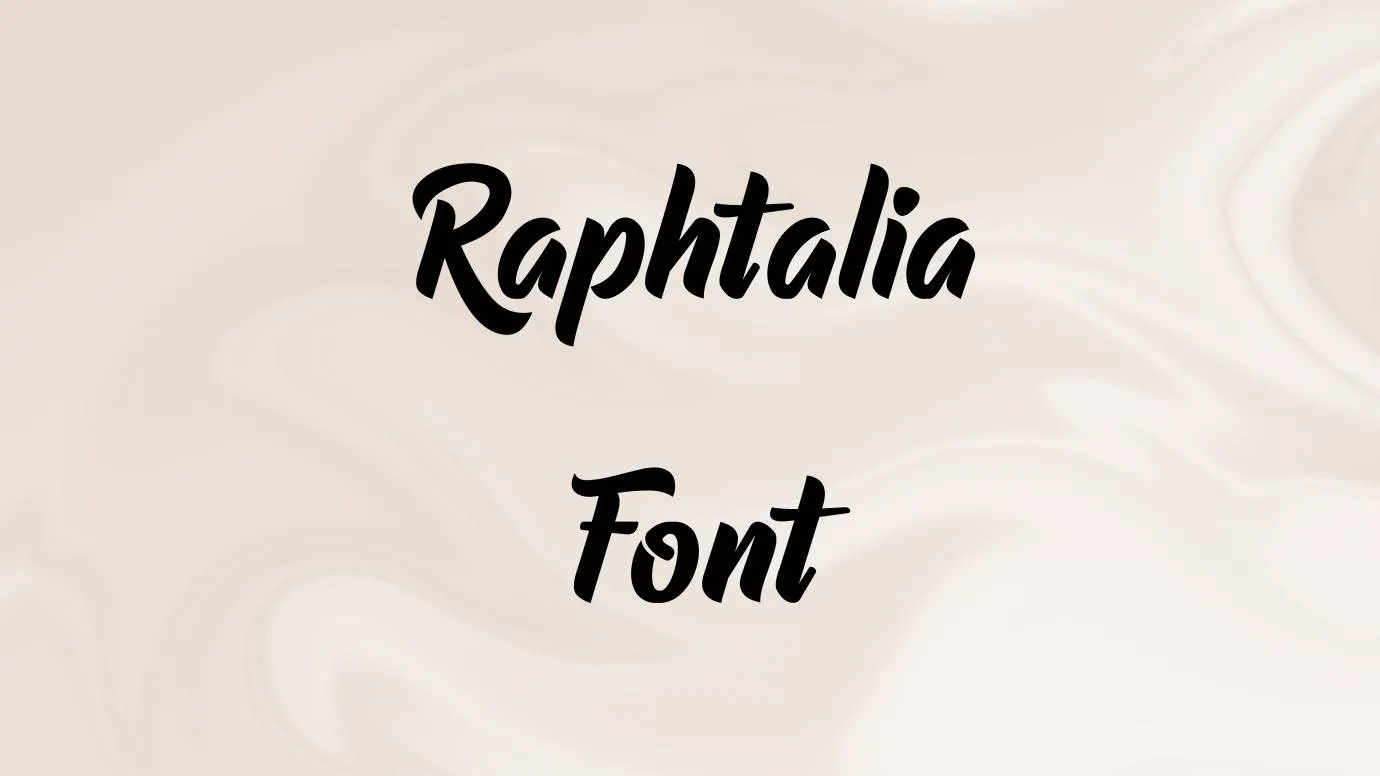
Raphtalia is a modern script Font. The main and real designer behind this typeface was Nurf Designs. The main feature of this typeface is that it has multiple special characters and attractive glimpses.
Raphtalia Font
NameRaphtalia Font
DesignerNurf Designs
Foundry FontSpace
Type Script
Date 2019